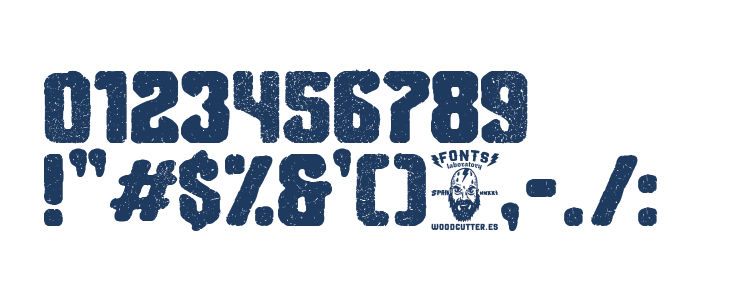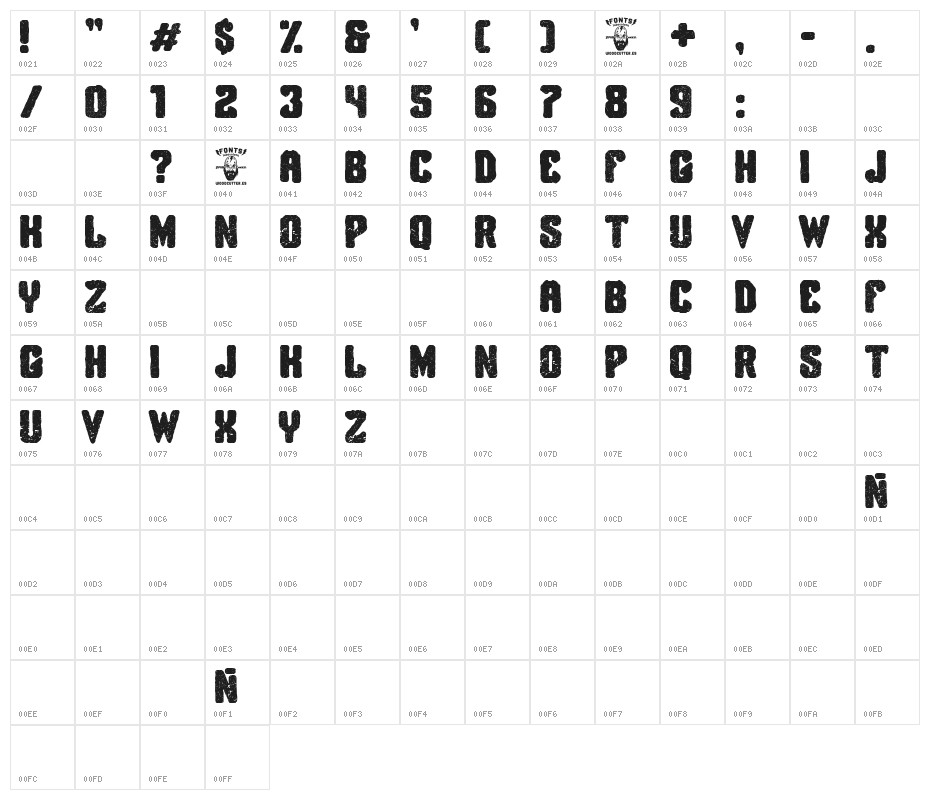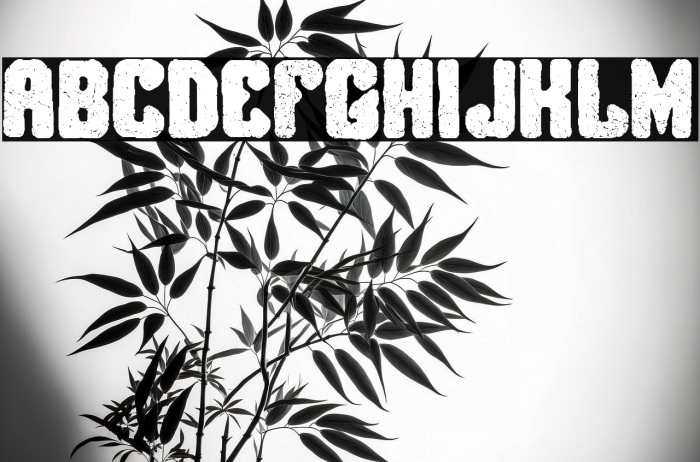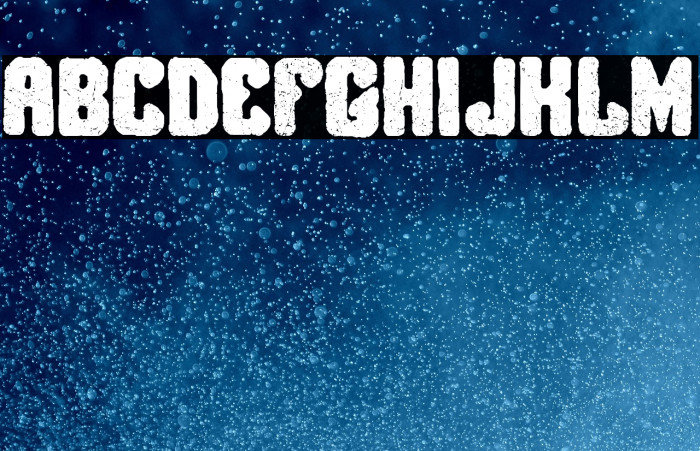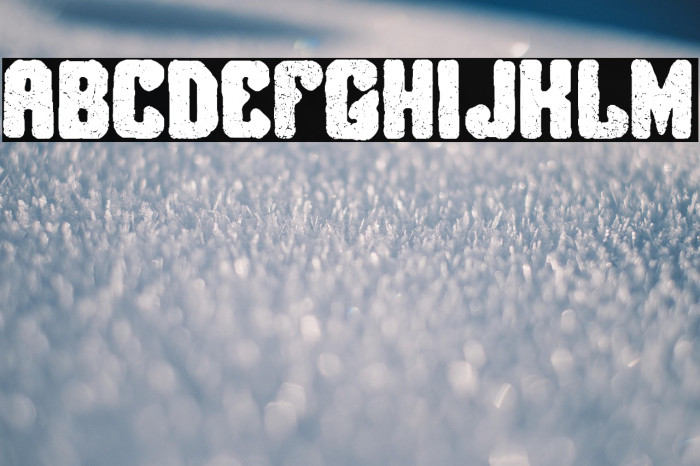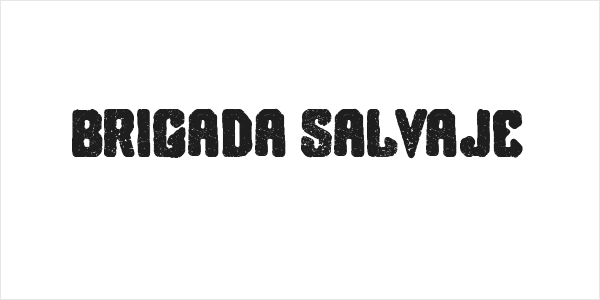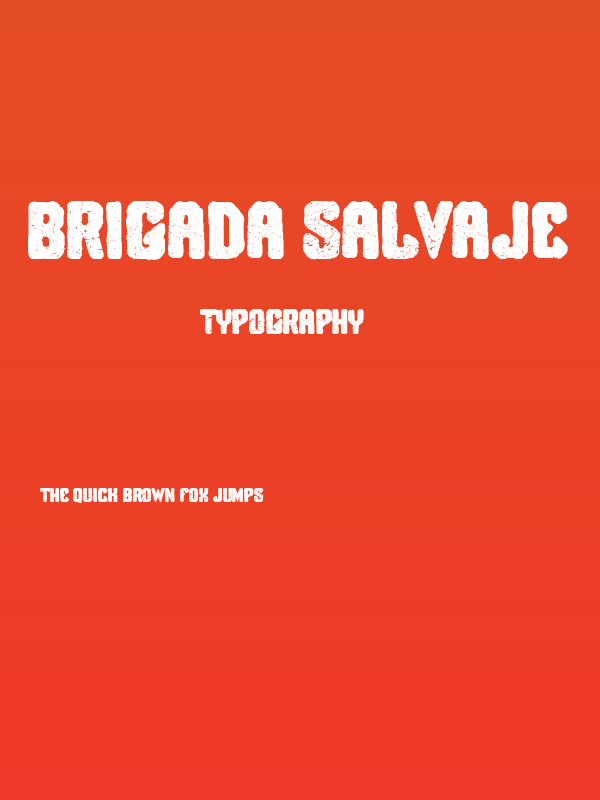
Brigada Salvaje Font
Brigada Salvaje Description
This font features a rugged, distressed appearance, giving it a bold and gritty character. The letters are thick and blocky, with a textured, worn-out effect that suggests a vintage or industrial feel. The uppercase and lowercase letters maintain a consistent style, with rounded edges and a slightly uneven surface that adds to the font's rustic charm. Numbers and special characters are designed to match the overall aesthetic, making this font ideal for projects that require a strong, impactful look. Its unique style makes it stand out, perfect for creating eye-catching headlines or logos.
| Proposed Projects | Ideal for posters, logos, branding, and any project needing a strong, vintage aesthetic. |